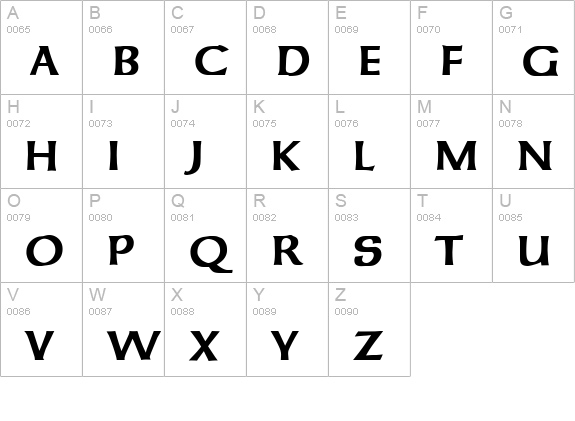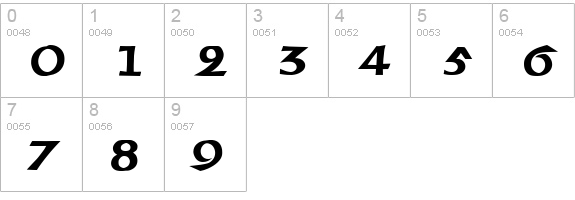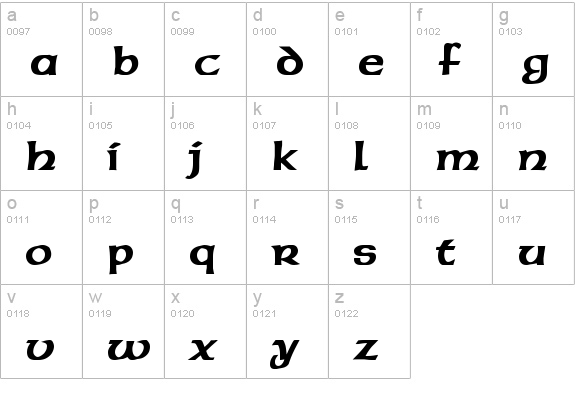
Unziale-Regular is the standard, neutral variant in the Unziale typeface family \xE2\x80\x94 well suited to general body text, paragraphs, and standard typographic work.
Unziale-Regular font is a stunning typeface that exudes elegance and sophistication. Its intricate letterforms are inspired by ancient calligraphy styles, giving it a timeless and classic appeal. The fluid strokes and delicate details of Unziale-Regular make it perfect for adding a touch of luxury to any design project. What sets Unziale-Regular apart is that it is not only visually captivating but also completely free to use. You can easily download this exquisite font from FontsMarket.com and incorporate it into your work without any cost. Whether you're designing a wedding invitation, a logo, or a website, Unziale-Regular is sure to bring a touch of refinement and charm to your project. Don't miss out on this exceptional font that is both beautiful and free to use.